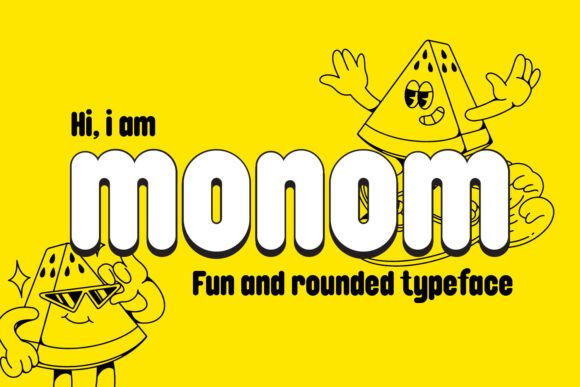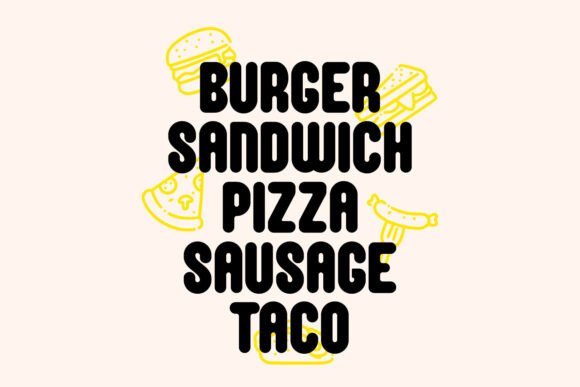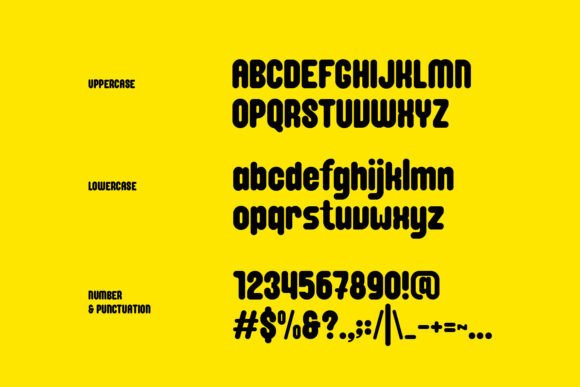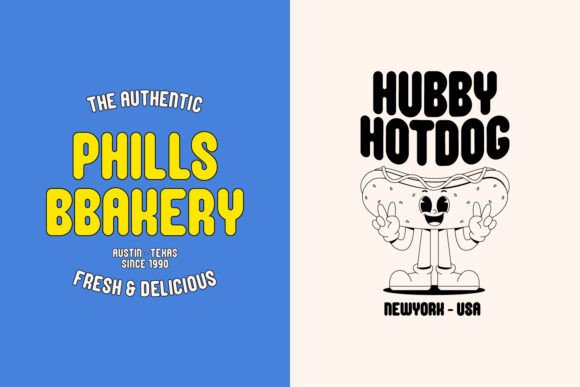
Monom Font: Playful Retro Typography for Cute Logos & Branding
About the Monom Font
The Monom Font offers a perfect balance of form and function for your design needs. Monom – Retro Playfull Font
Monom is a rounded sans-serif font that brings a bold and cheerful touch to any project. Its playful character makes it perfect for retro and child-friendly themes, adding a sense of fun and energy to your work. Ideal for posters, food menus, logos, badges, labels, and more, Monom is the perfect choice for designs that need a lively, vibrant edge.
Monom’s playful energy makes it highly effective for projects targeting younger audiences or those requiring a vibrant, retro aesthetic. It excels in headlines, logos, short-form text on packaging, and playful social media graphics. However, its rounded forms and relatively low x-height make it less suitable for extended body copy or UI elements where readability is paramount.
Pairing Monom effectively requires considering its cheerful, rounded forms. A crisp, geometric sans-serif like Futura or a classic serif like Garamond can provide a sophisticated counterpoint, grounding the design while maintaining visual interest. For a more playful combination, consider pairing it with a handwritten script font, but ensure legibility remains a priority.
Ultimately, Monom’s personality is best described as bold and friendly. Brands focused on children’s products, playful food and beverage items, or retro-inspired projects will find its character particularly well-suited to their needs.